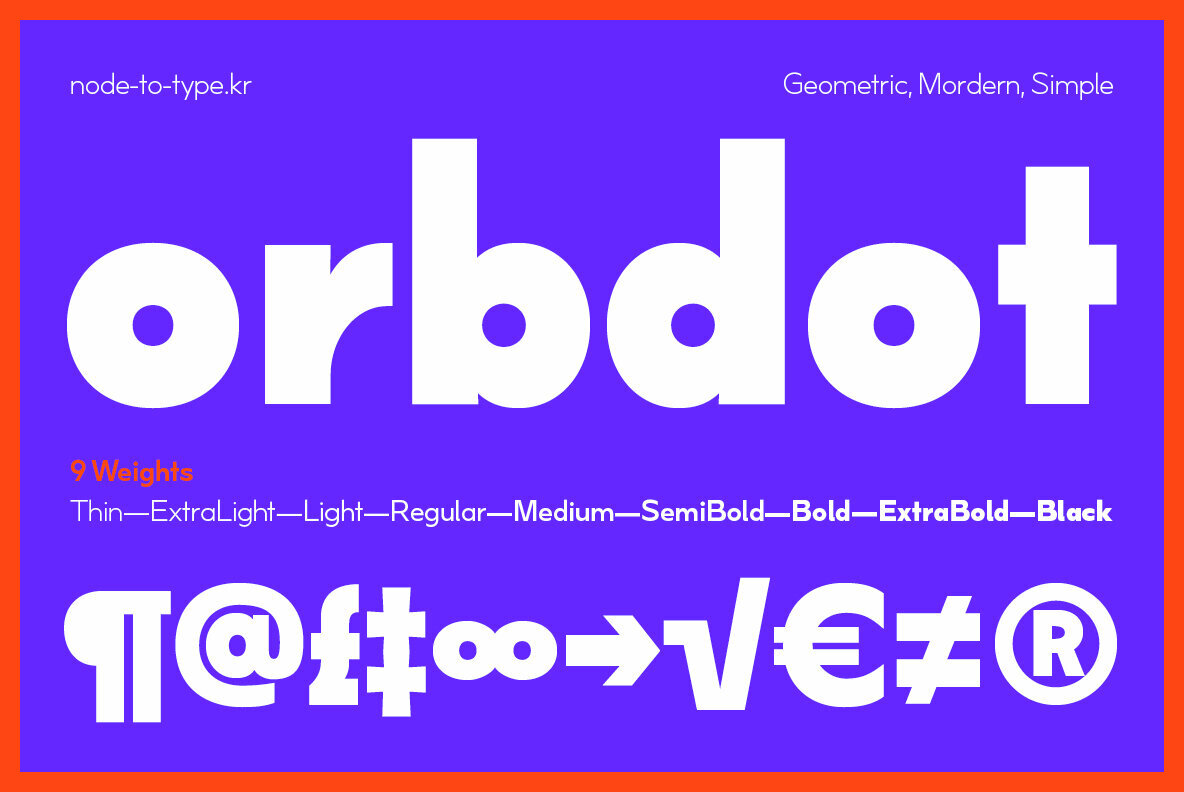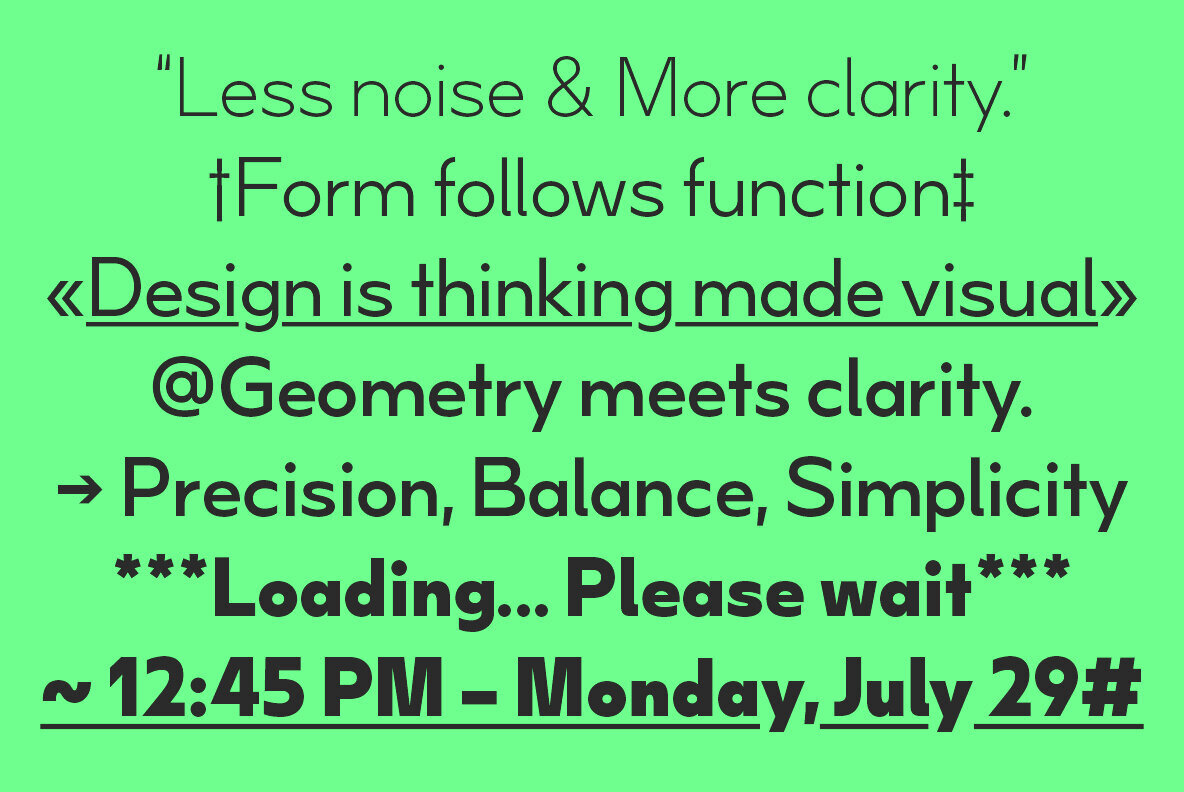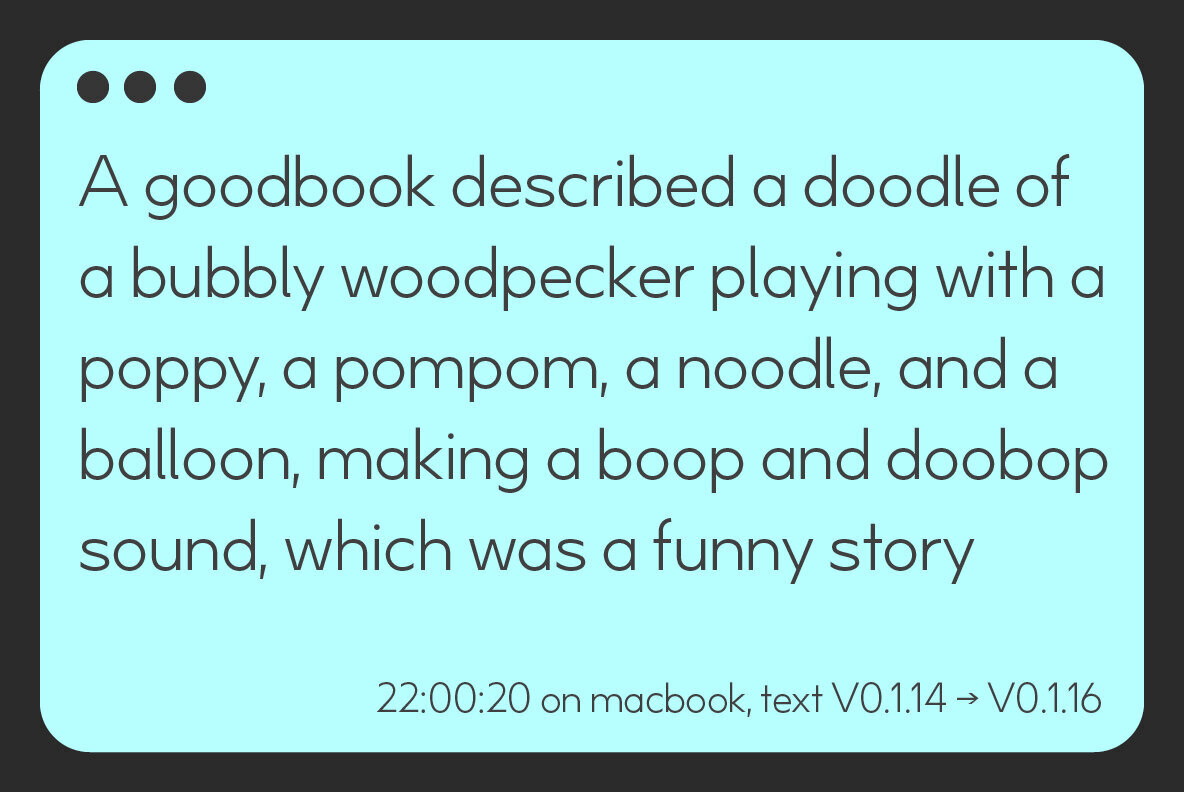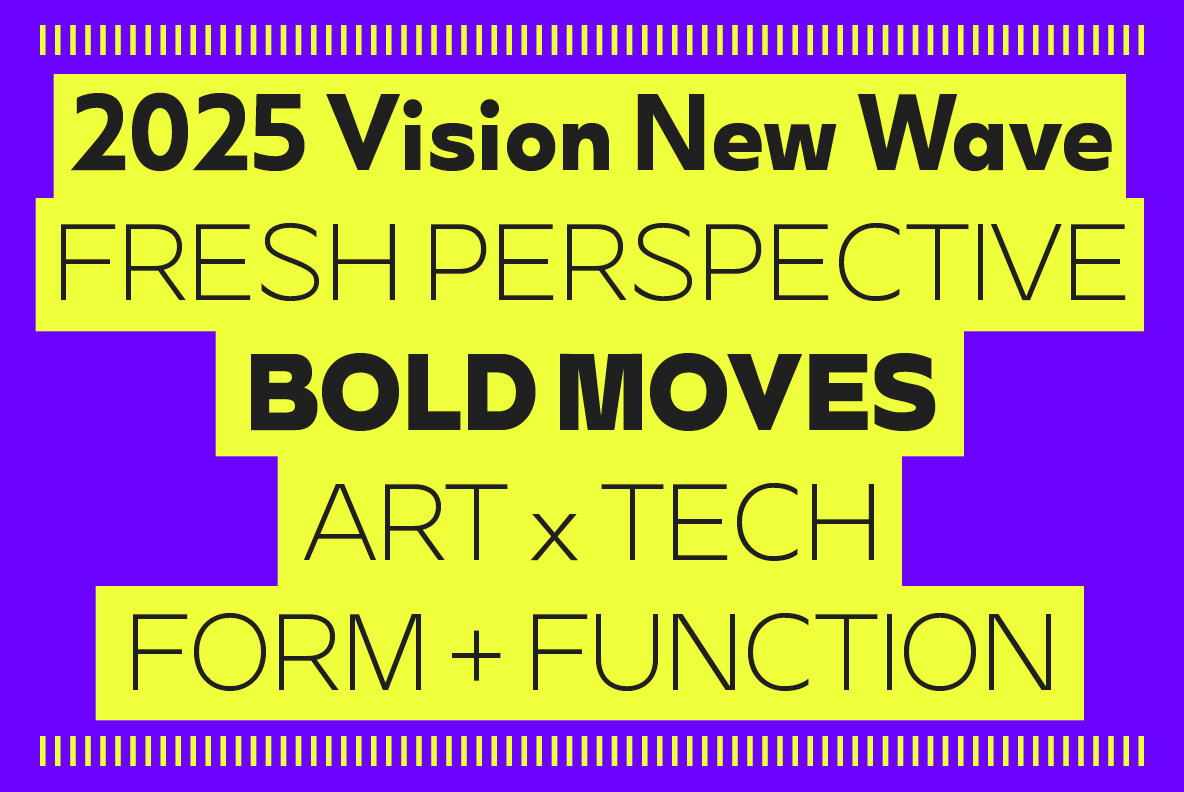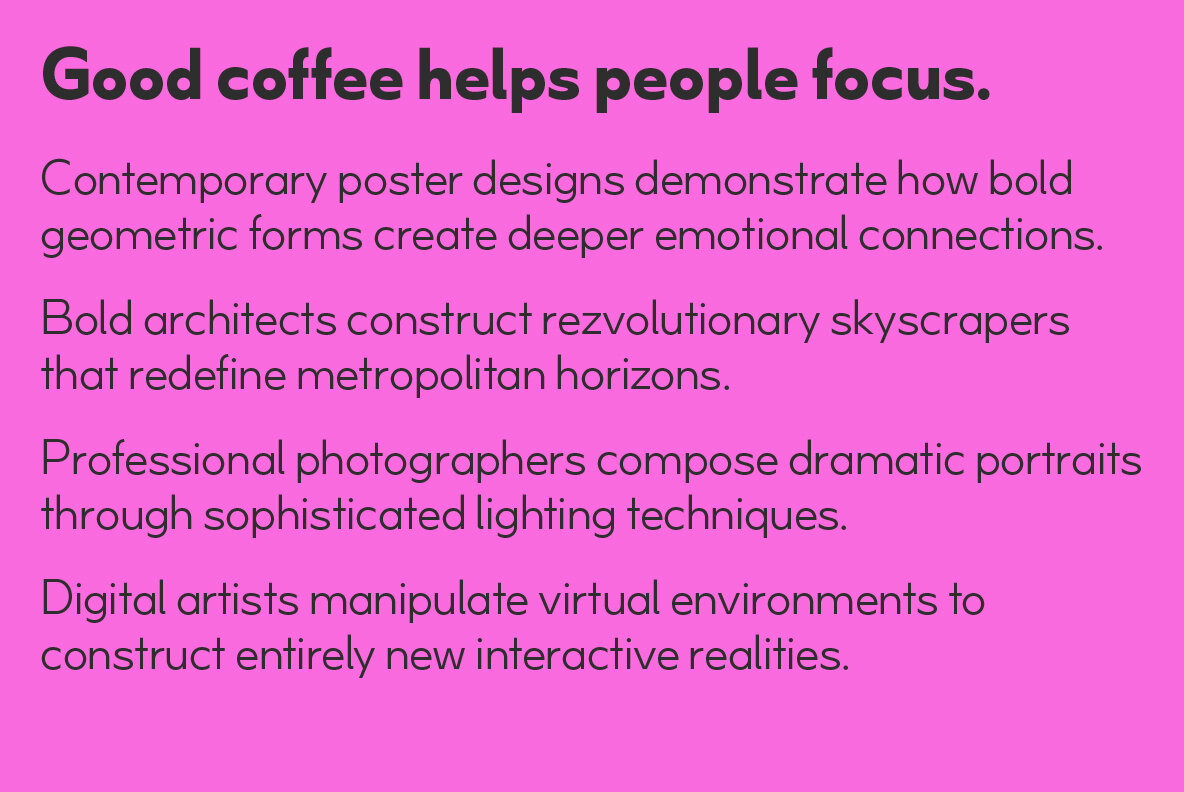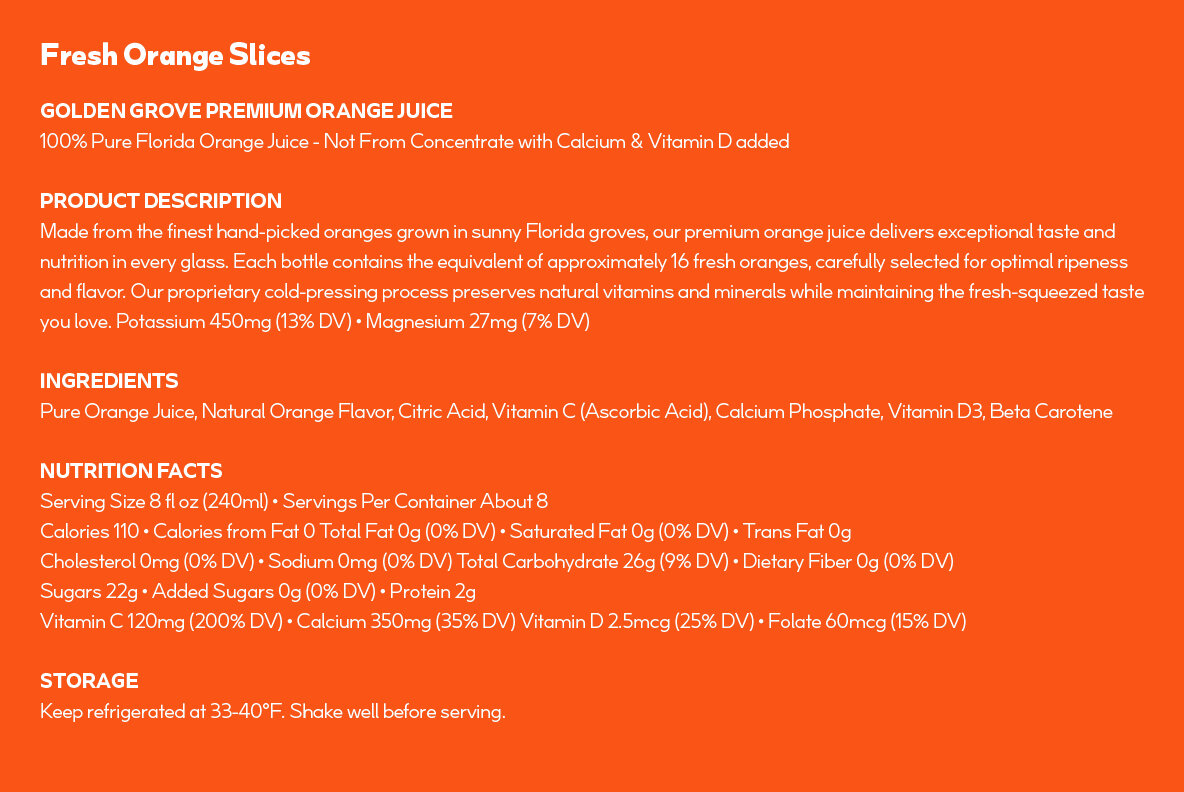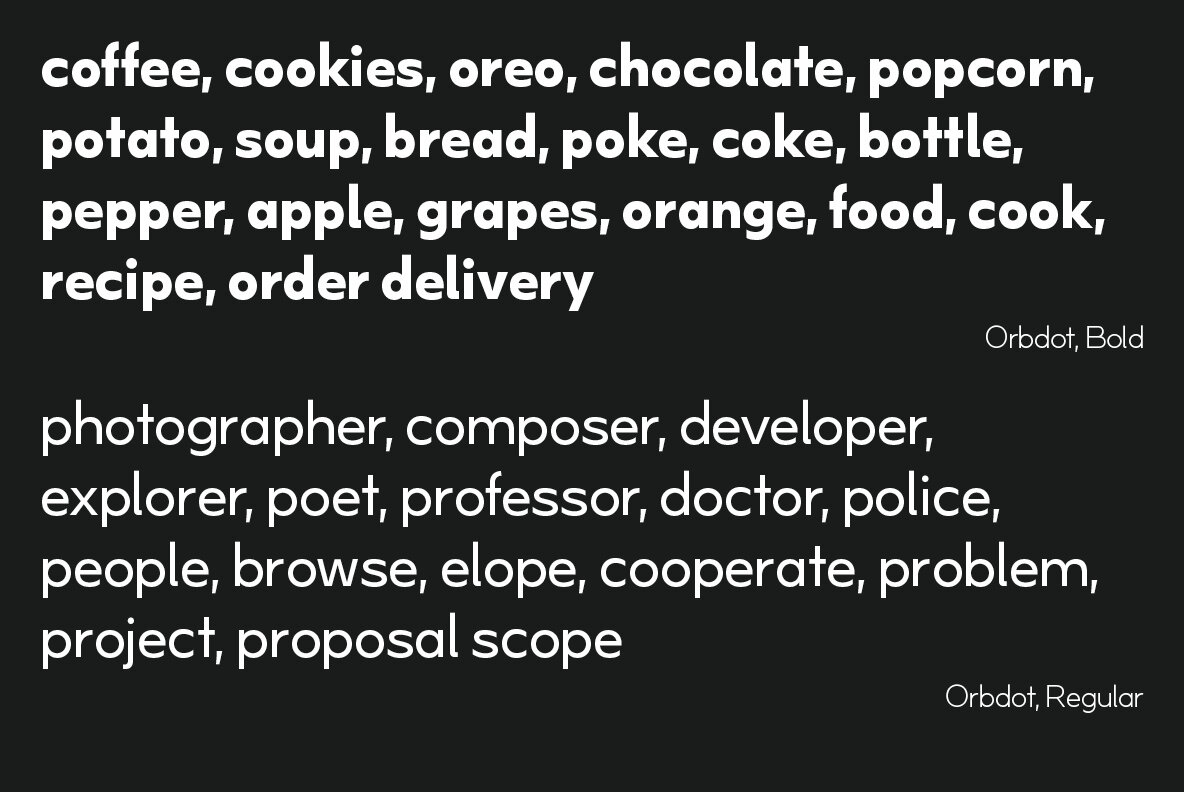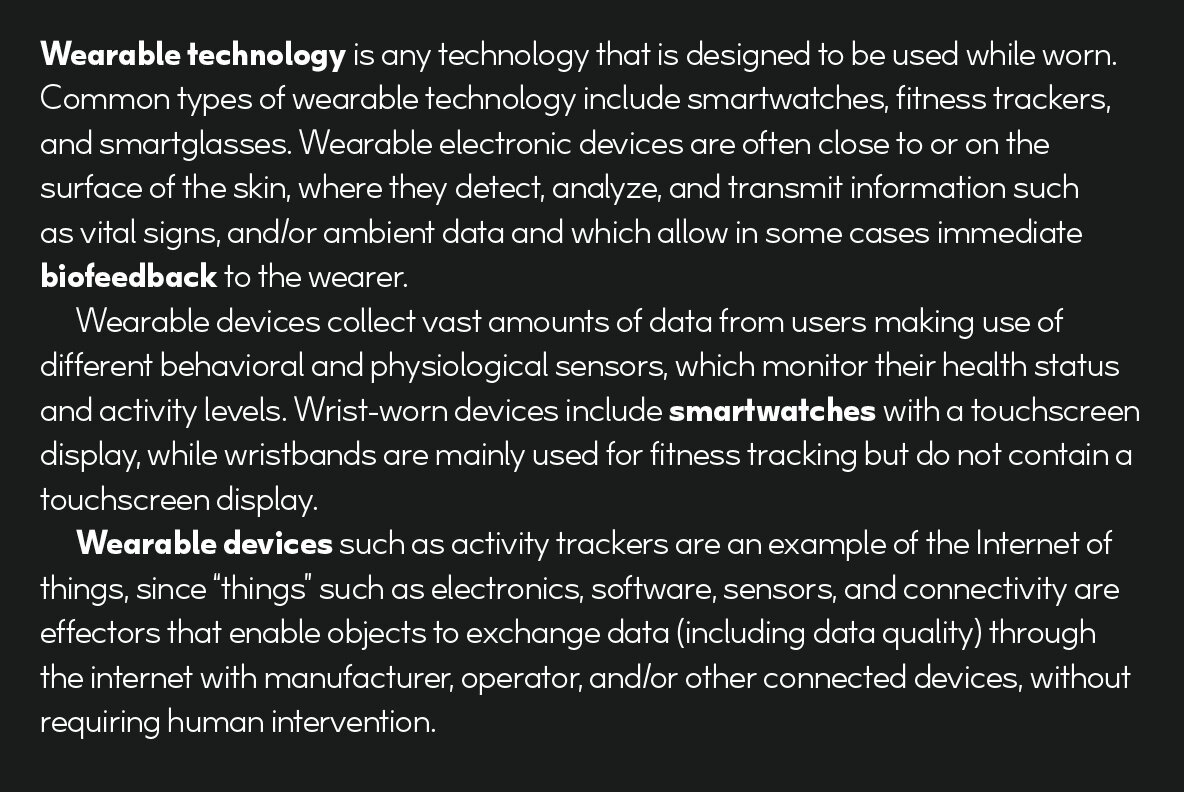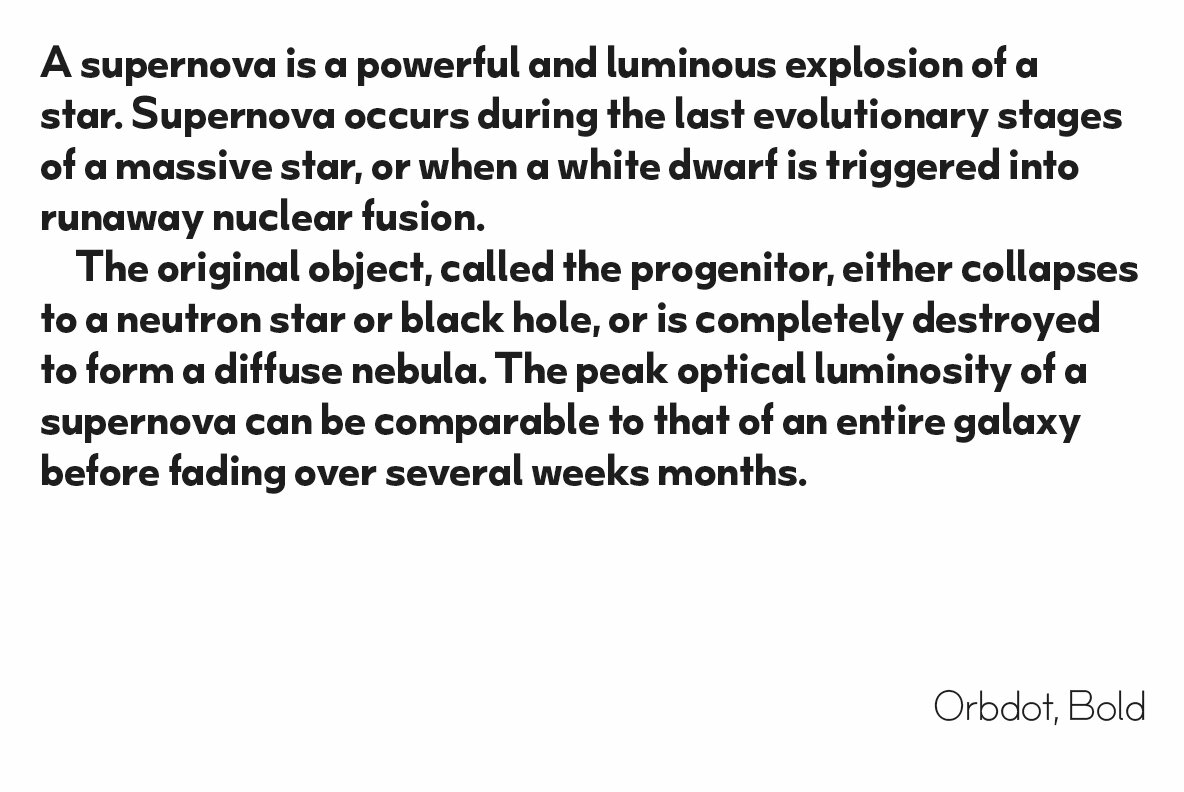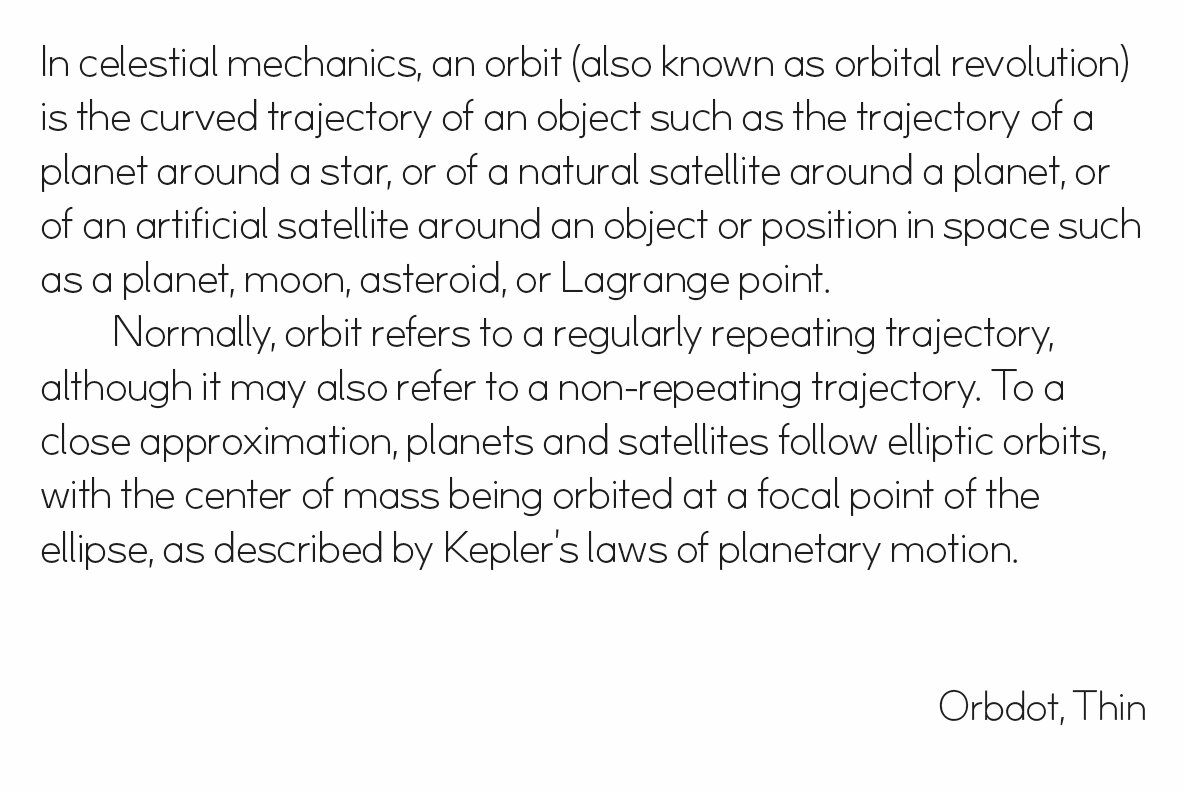
NtT Orbdot Font
NtT Orbdot is a versatile geometric sans-serif that combines modern minimalism with warm, rounded forms. Its clean structure creates an inviting visual rhythm, making it a perfect choice for contemporary branding and digital design, including UX/UI and web applications. With a low x-height and wide open counters, NtT Orbdot achieves a balance of elegance and remarkable legibility. The low x-height allows for distinctive near-circular letterforms that infuse personality and character into your work, establishing a unique rhythm. Available in nine harmonious weights, from ExtraLight to Black, it offers broad typographic flexibility suitable for UI, editorial, and branding contexts. NtT Orbdot is ideal when clean, minimal aesthetics need to coexist with approachability and readability. Key Features:Geometric Sans-Serif: NtT Orbdot